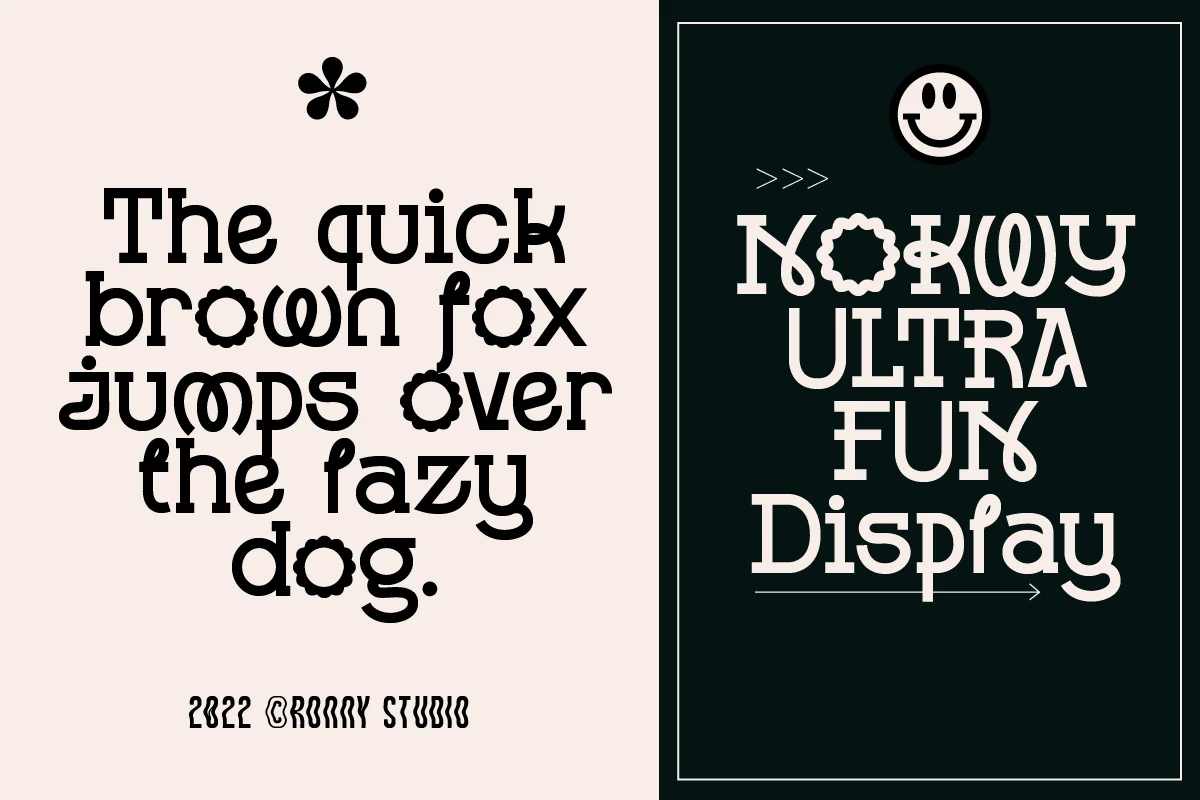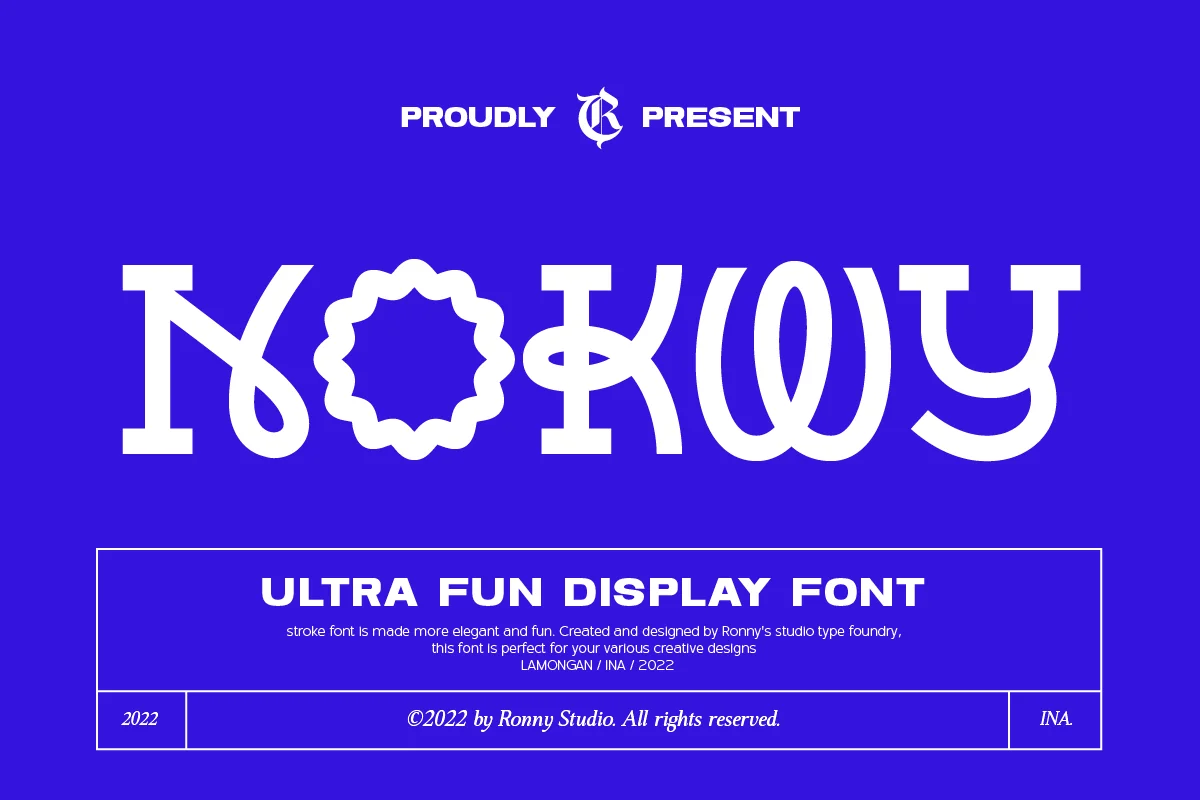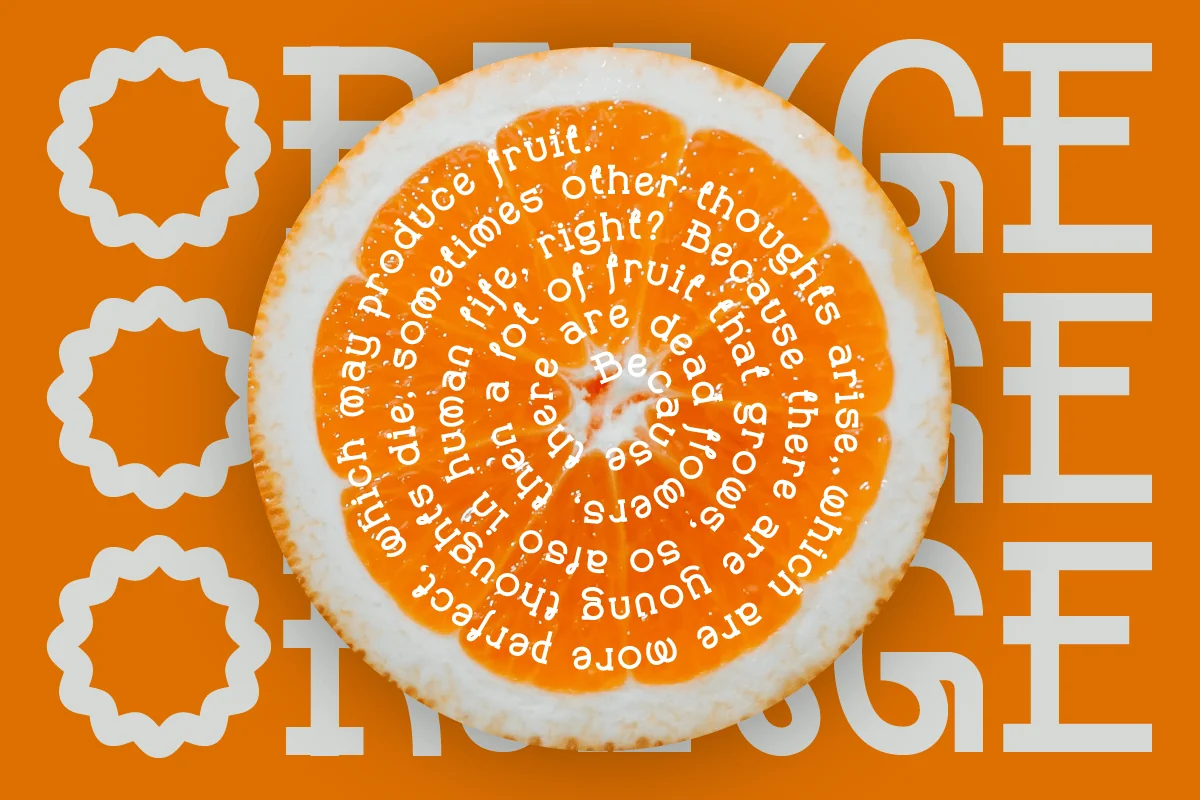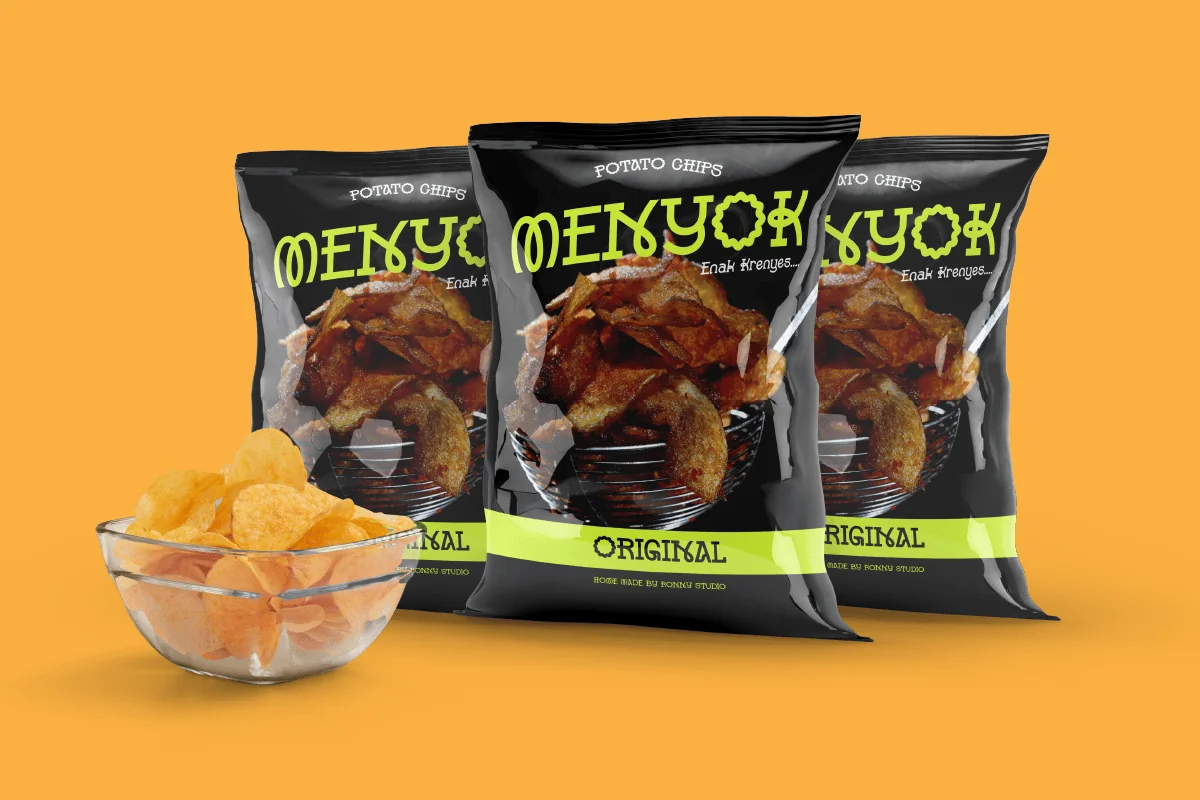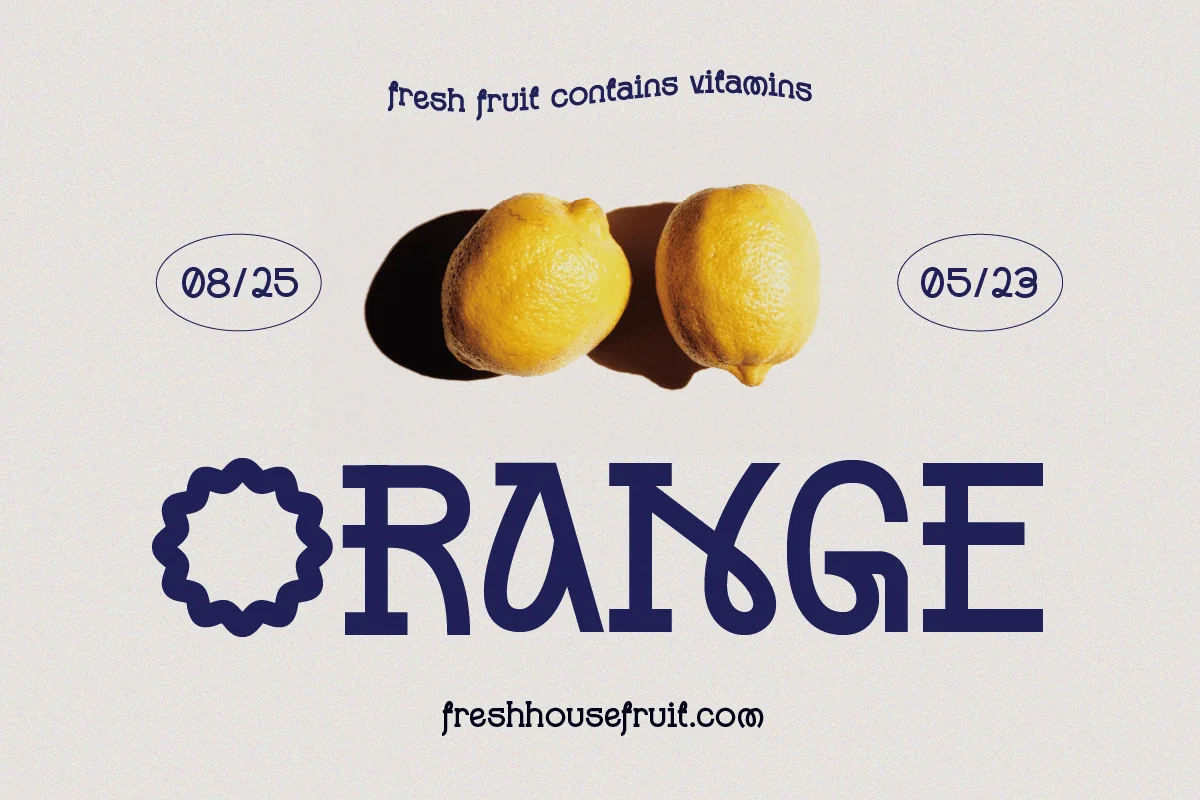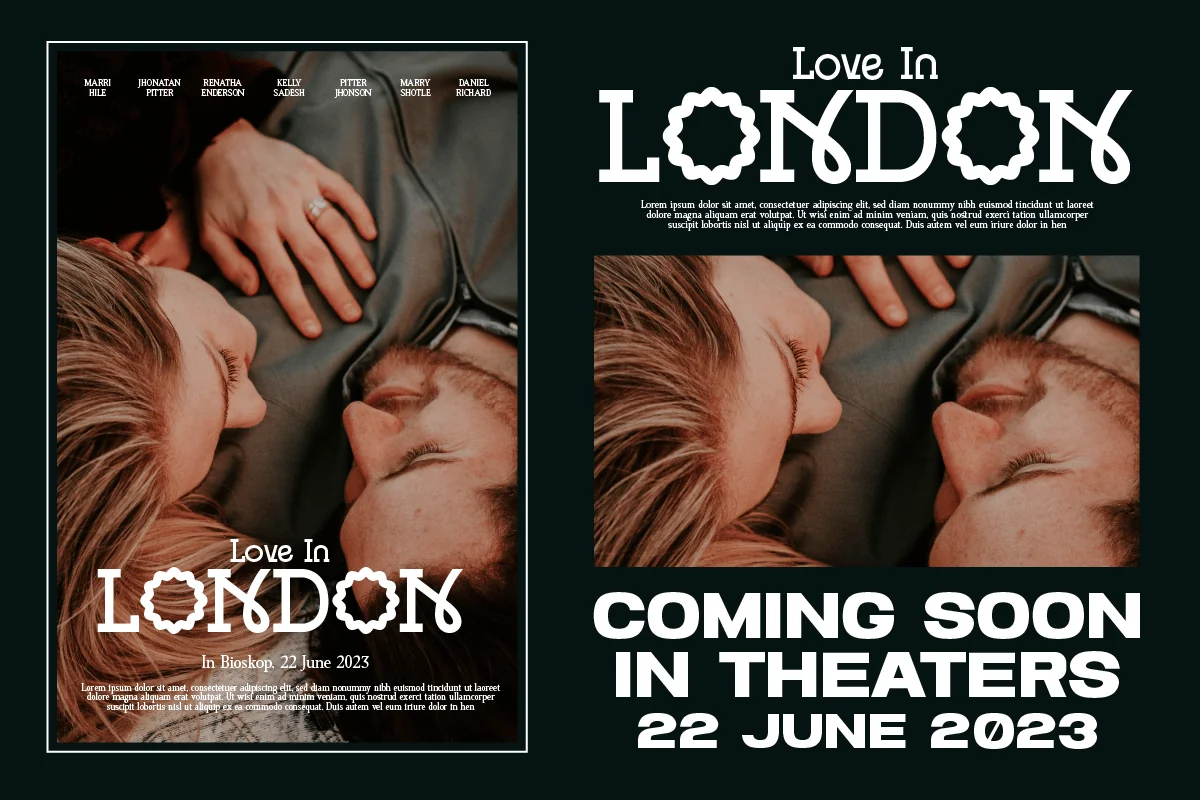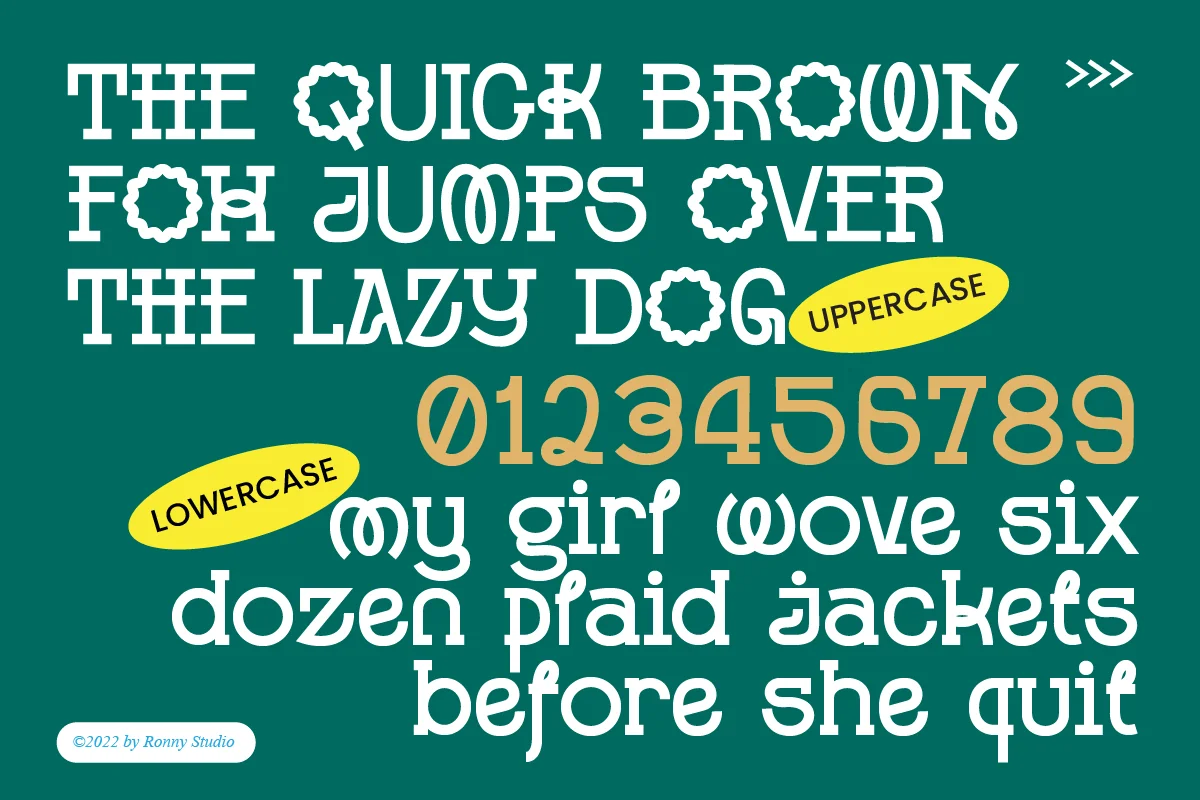
Nokwy – Ultra Fun Display Font
Nokwy is a unique display font perfect for contemporary display types and branding. This font has fonts that are attractive enough to attract readers and make them smile. This font looks very simple and pleasing to the eye.
- Lowercase & Uppercase
- numbers and punctuation
- multilingual
- alternates